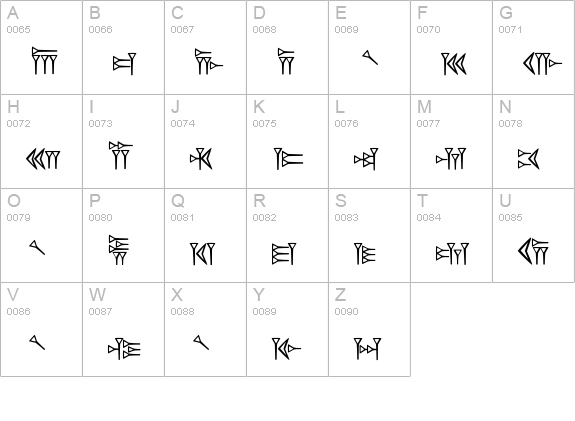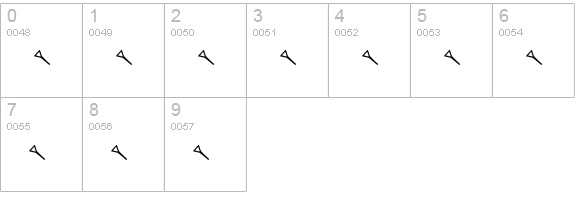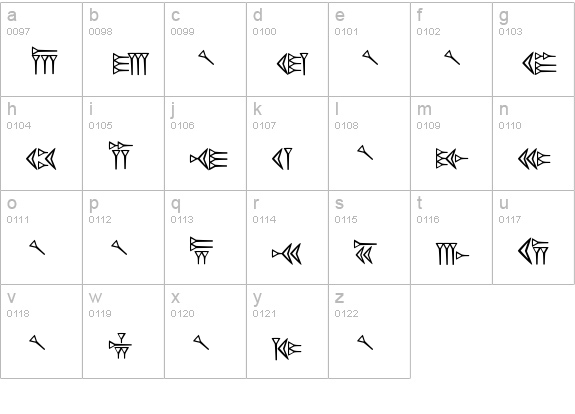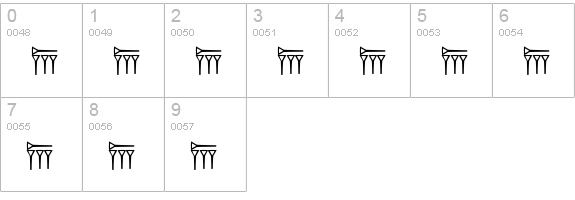
persische Keilschrift Font Details
The Persische Keilschrift font is a stunning and unique typeface that beautifully captures the ancient writing system of Persia. With its intricate and intricate details, this font brings a touch of elegance and authenticity to any design project. What sets the Persische Keilschrift font apart is not only its historical significance but also its versatility. Whether you're working on a logo, a poster, or a book cover, this font adds a touch of sophistication and mystique, creating a visually captivating experience for the reader. One of the most appealing aspects of the Persische Keilschrift font is that it is freely available to download at FontsMarket.com. This means that designers, students, and enthusiasts alike can easily access this font without any financial constraints. This makes it an excellent choice for those who want to add a touch of ancient Persian charm to their projects, without breaking the bank. The Persische Keilschrift font is designed with meticulous attention to detail, ensuring that every letter and symbol is crafted with precision. The result is a font that is both visually striking and highly legible, making it suitable for a wide range of applications. Whether you're designing a website, creating a presentation, or working on a print publication, the Persische Keilschrift font is sure to make a lasting impression. Its unique and captivating style will transport your audience to a bygone era, while still maintaining a contemporary and modern feel. In conclusion, the Persische Keilschrift font is a must-have for any designer or typographer looking to add a touch of elegance and historical significance to their projects. With its stunning details, versatility, and the fact that it is freely available to download at FontsMarket.com, this font is a valuable addition to any font library. So why wait? Download the Persische Keilschrift font today and let your creativity soar.